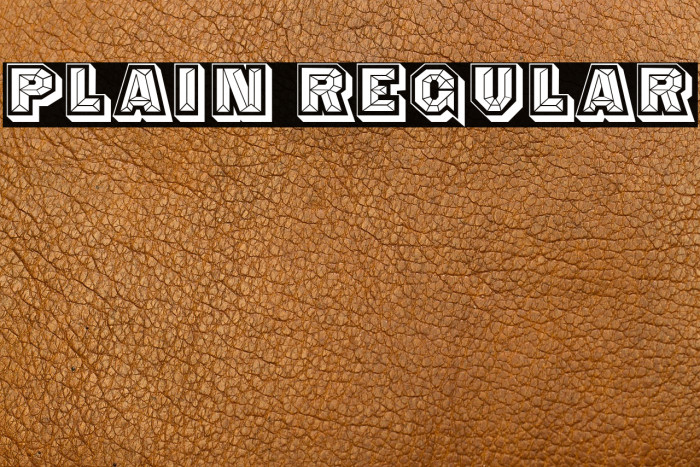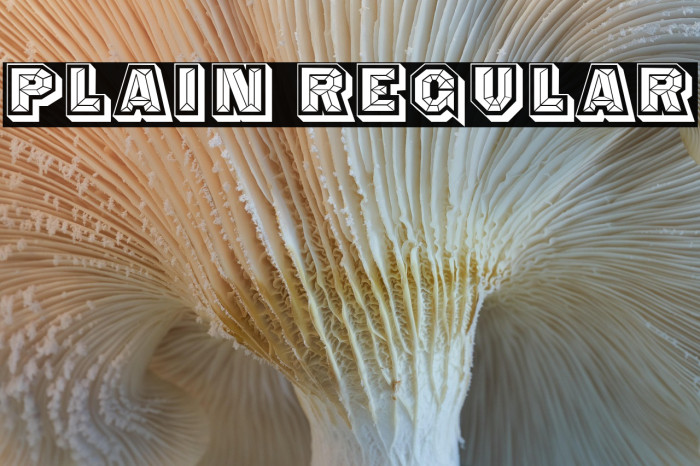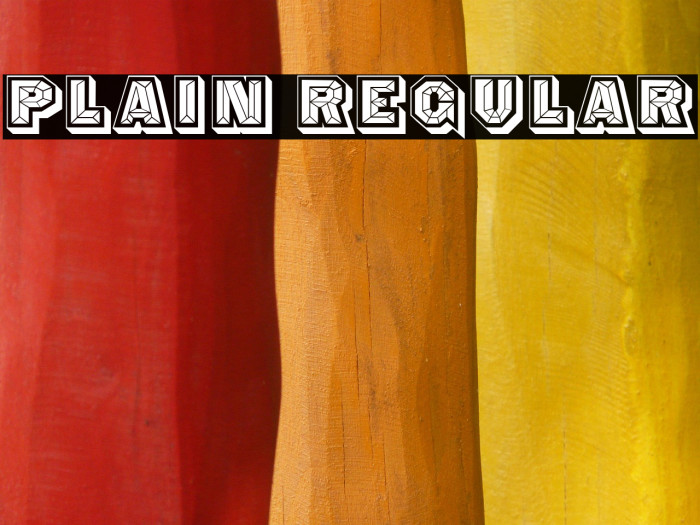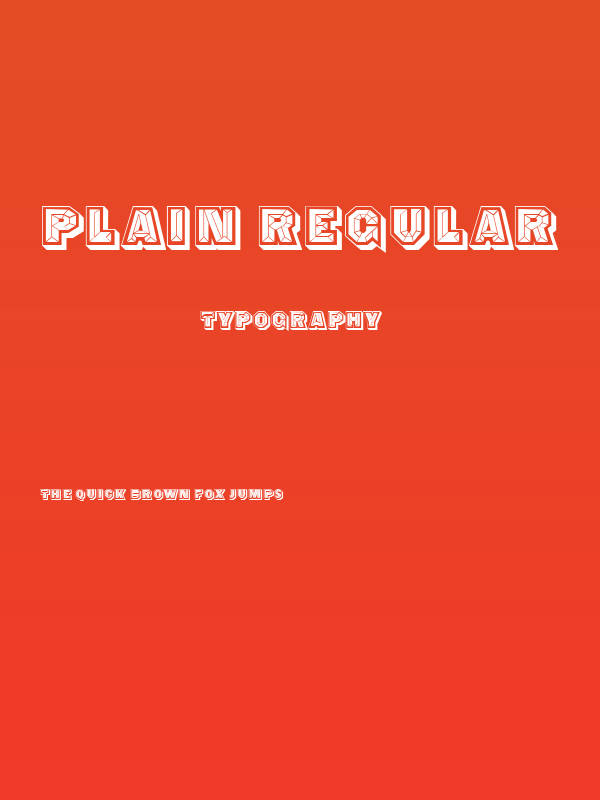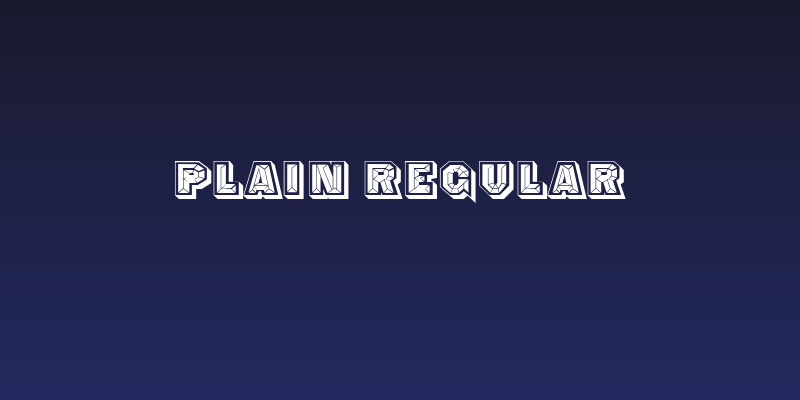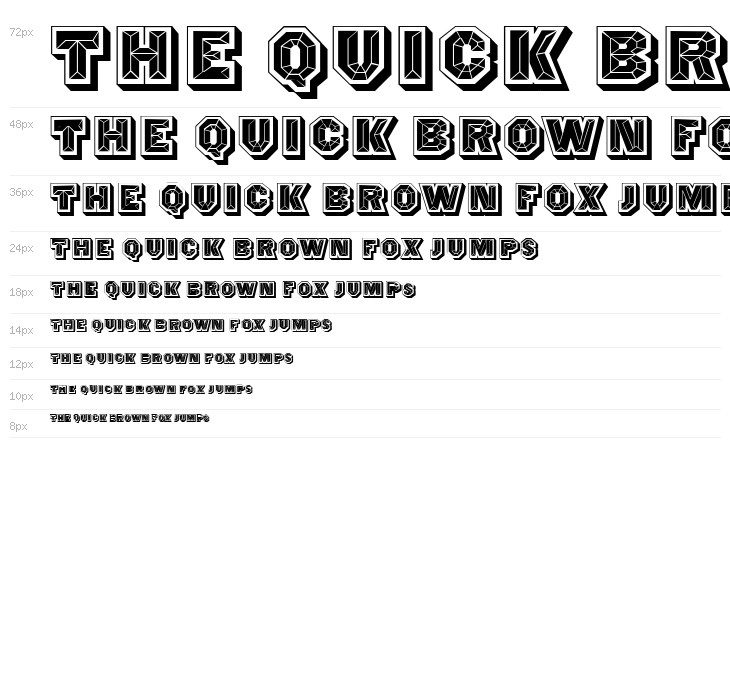
Plain Regular Font
Plain Regular Description
This font features a bold, three-dimensional design with a distinct shadow effect that gives each character a sense of depth and volume. The uppercase letters are prominently styled with sharp angles and clean lines, creating a striking visual impact. The geometric nature of the font is emphasized by its blocky structure, making it ideal for attention-grabbing headlines and titles. The consistent thickness of the strokes across all characters ensures a uniform appearance, while the shadow adds a layer of complexity and sophistication. The font's design is both modern and retro, reminiscent of vintage signage and posters, yet it maintains a contemporary edge that makes it versatile for various design applications.
| Overall Style | Modern, Vintage |
| Proposed Projects | Perfect for posters, logos, branding materials, and any project requiring a bold, eye-catching typeface. |